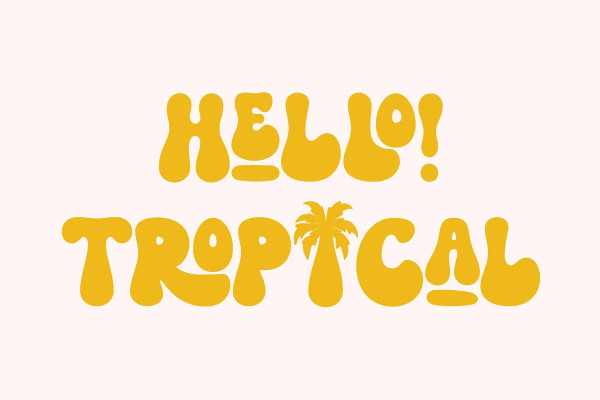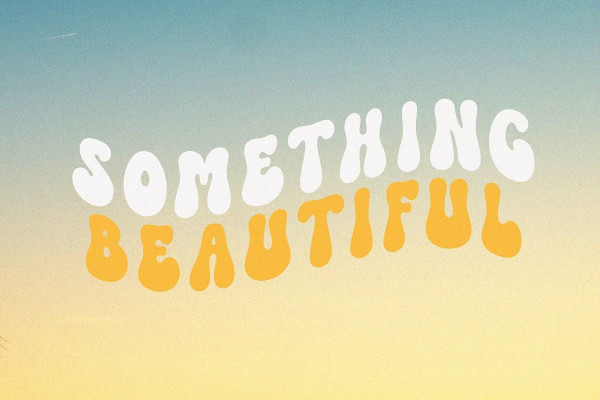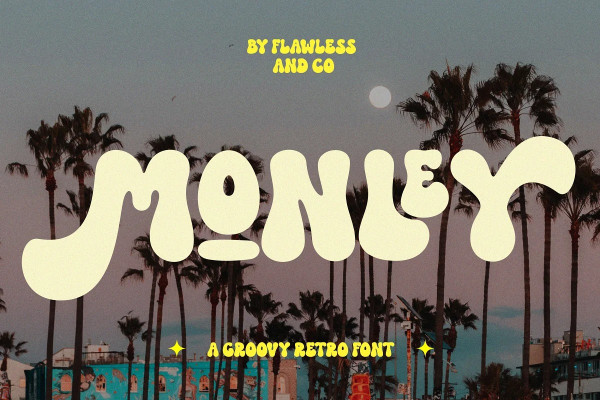
MONLEY RETRO FONT
Monley Retro Font – Retro Groovy Font,  our new “Monley” Modern Retro with Fun and Elegant Style is perfect for branding, logos, invitation, master heads, and more.